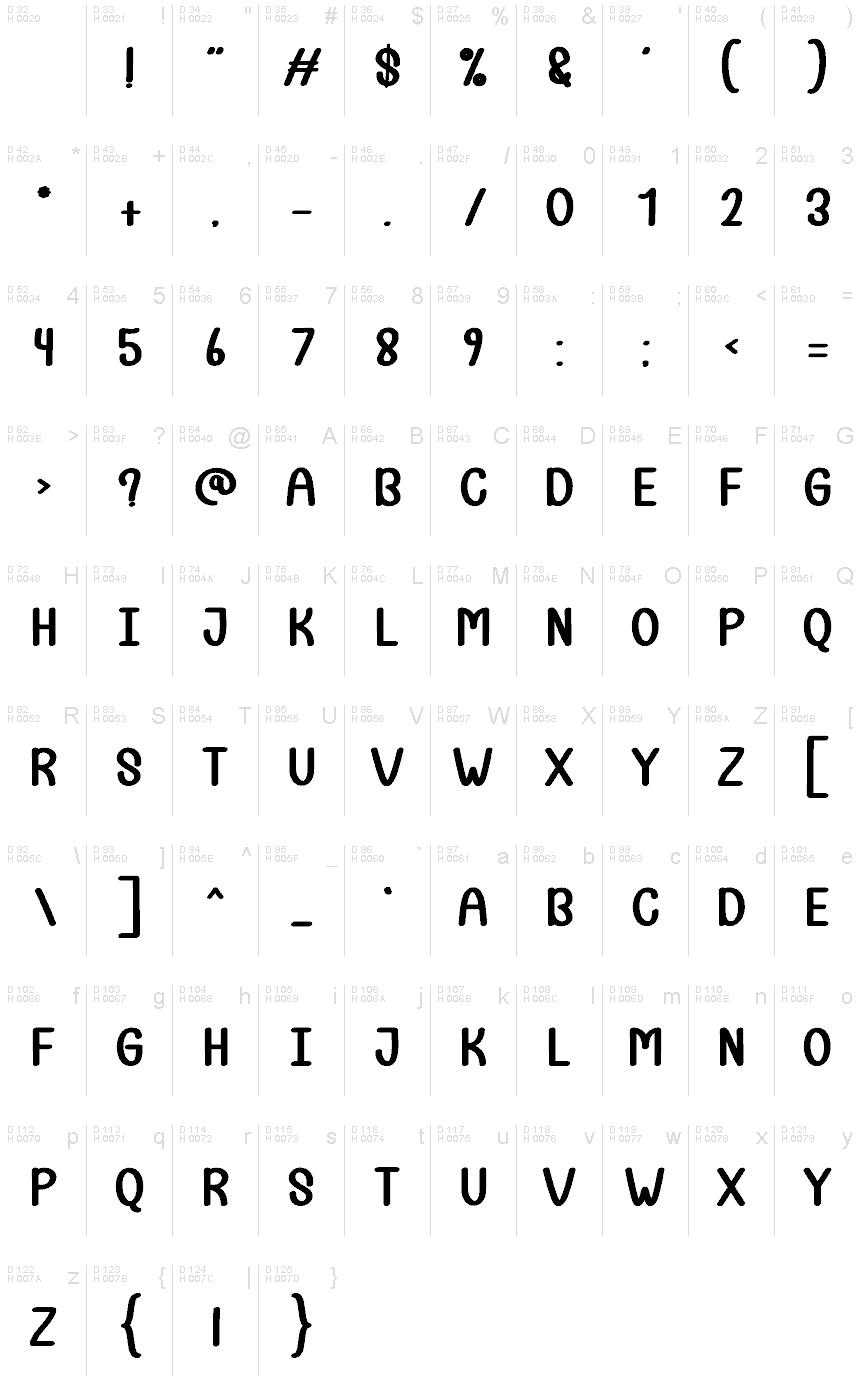
Red Moon
Red Moon font designed by Andi Moz is a free handwritten font that boasts an engaging and retro-inspired style. It has an organic feel to it that comes with a subtly quirky side as well providing a friendly appearance wherever it is used.